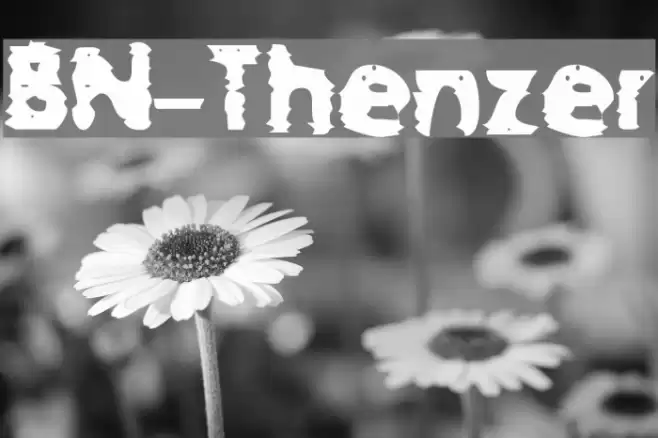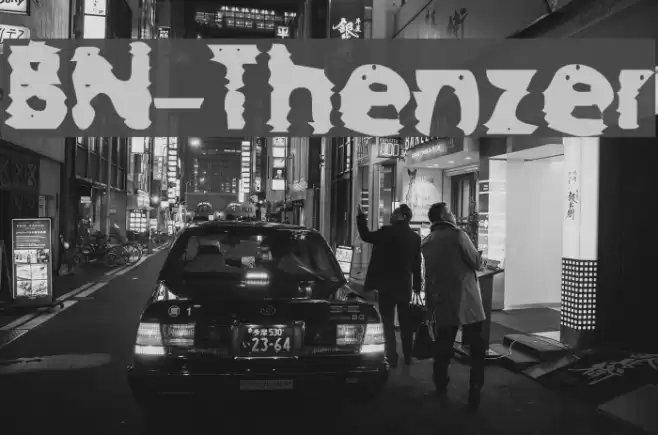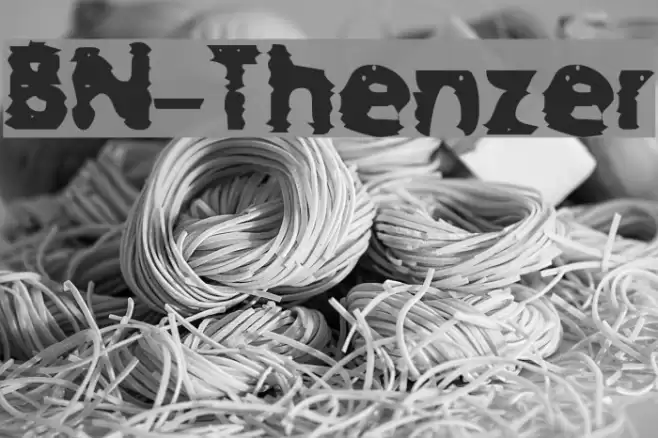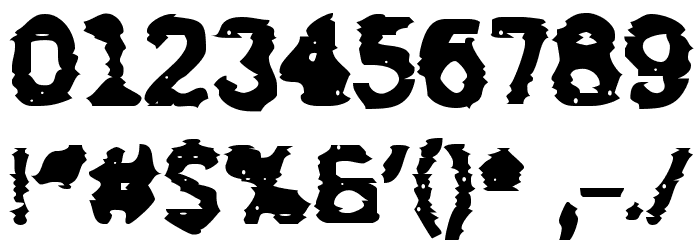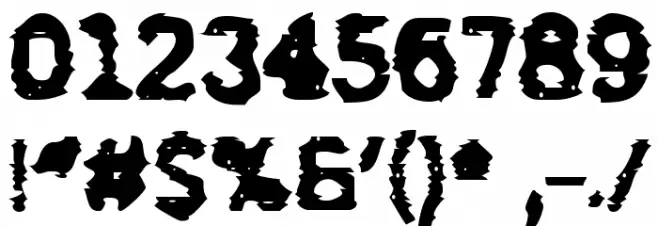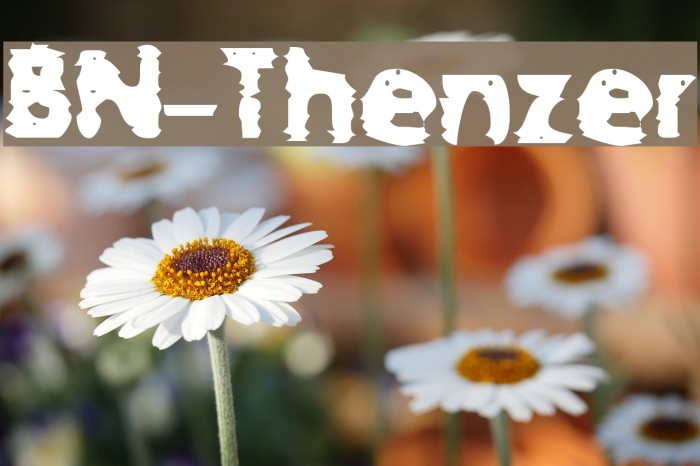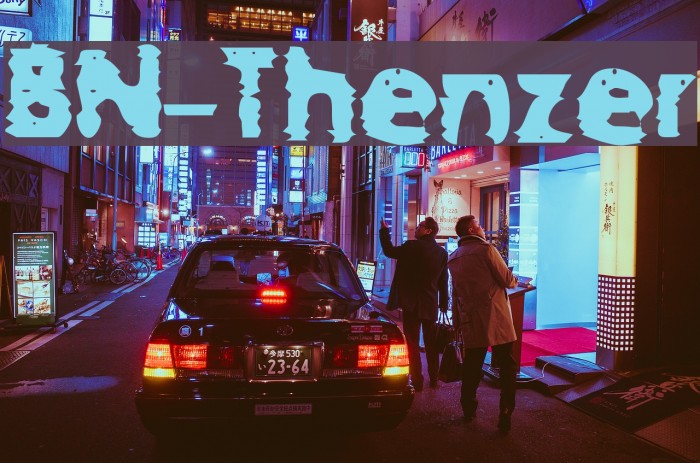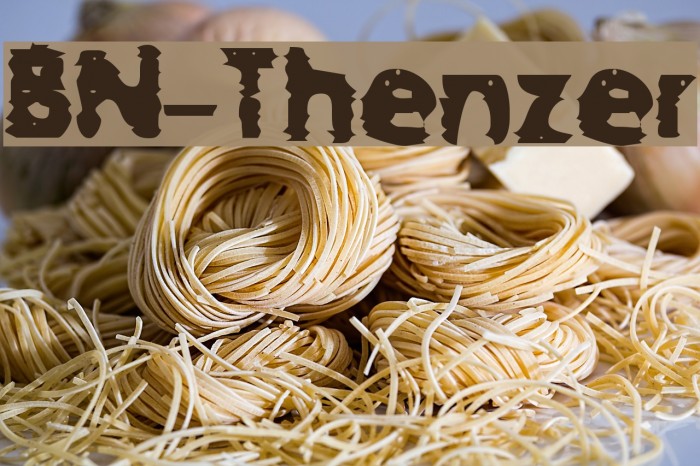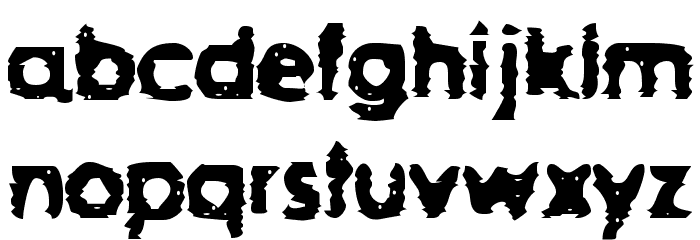
BN-Thenzer Font
BN-Thenzer Description
This font exhibits a bold and rugged style with a distressed, grunge-like appearance. The characters are heavily textured, giving them a worn and weathered look. Each letter is uniquely shaped with irregular edges and varying thickness, creating a dynamic and eye-catching effect. The font maintains a consistent height across uppercase and lowercase letters, while numerals and special characters follow the same stylistic approach. This design choice makes it ideal for projects that require a strong, impactful visual presence.
A bold, distressed font with a rugged, grunge-like appearance from Uncategorized fonts.
- Proposed Projects: Ideal for album covers, posters, branding for edgy or alternative products, and any design needing a bold, gritty aesthetic.